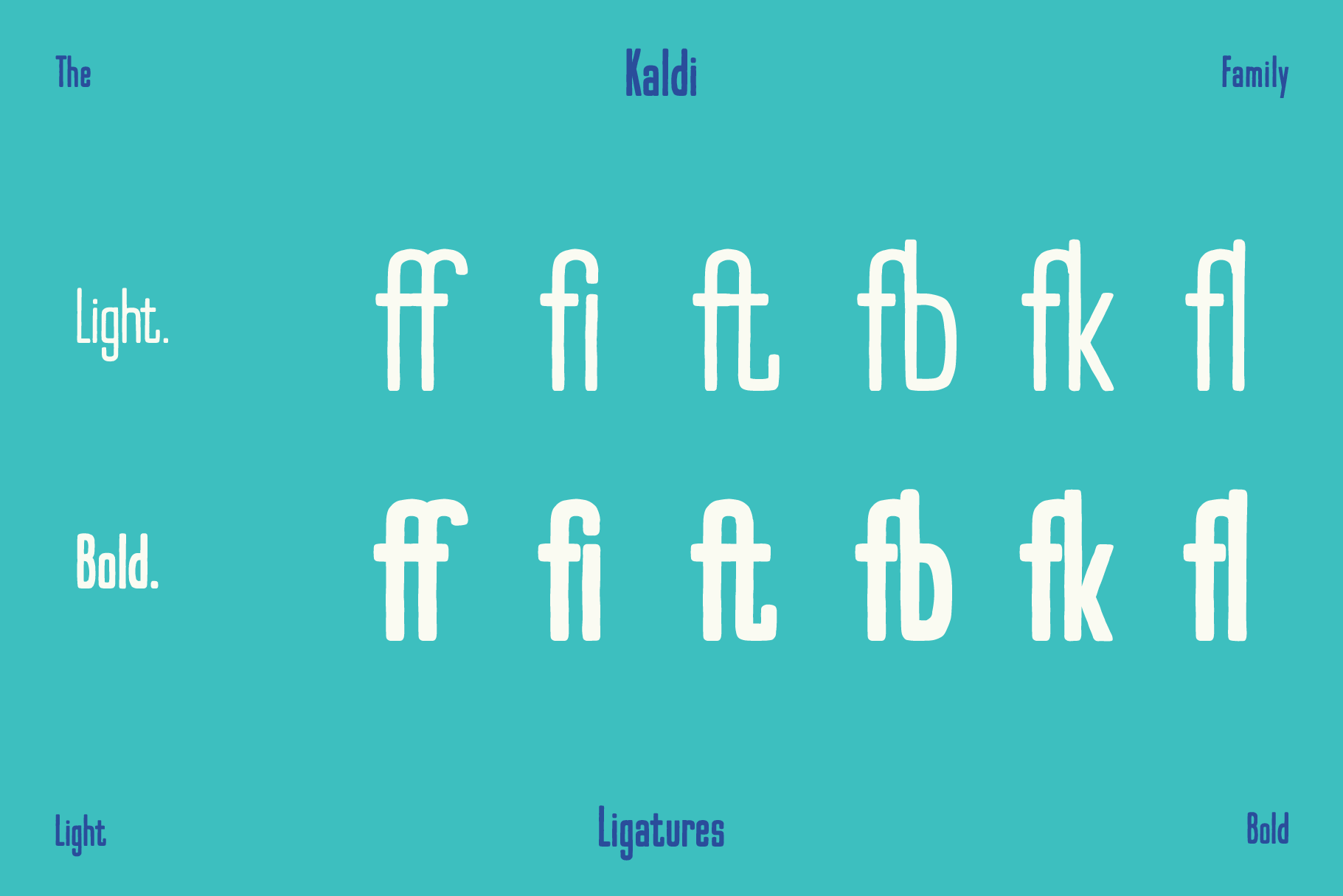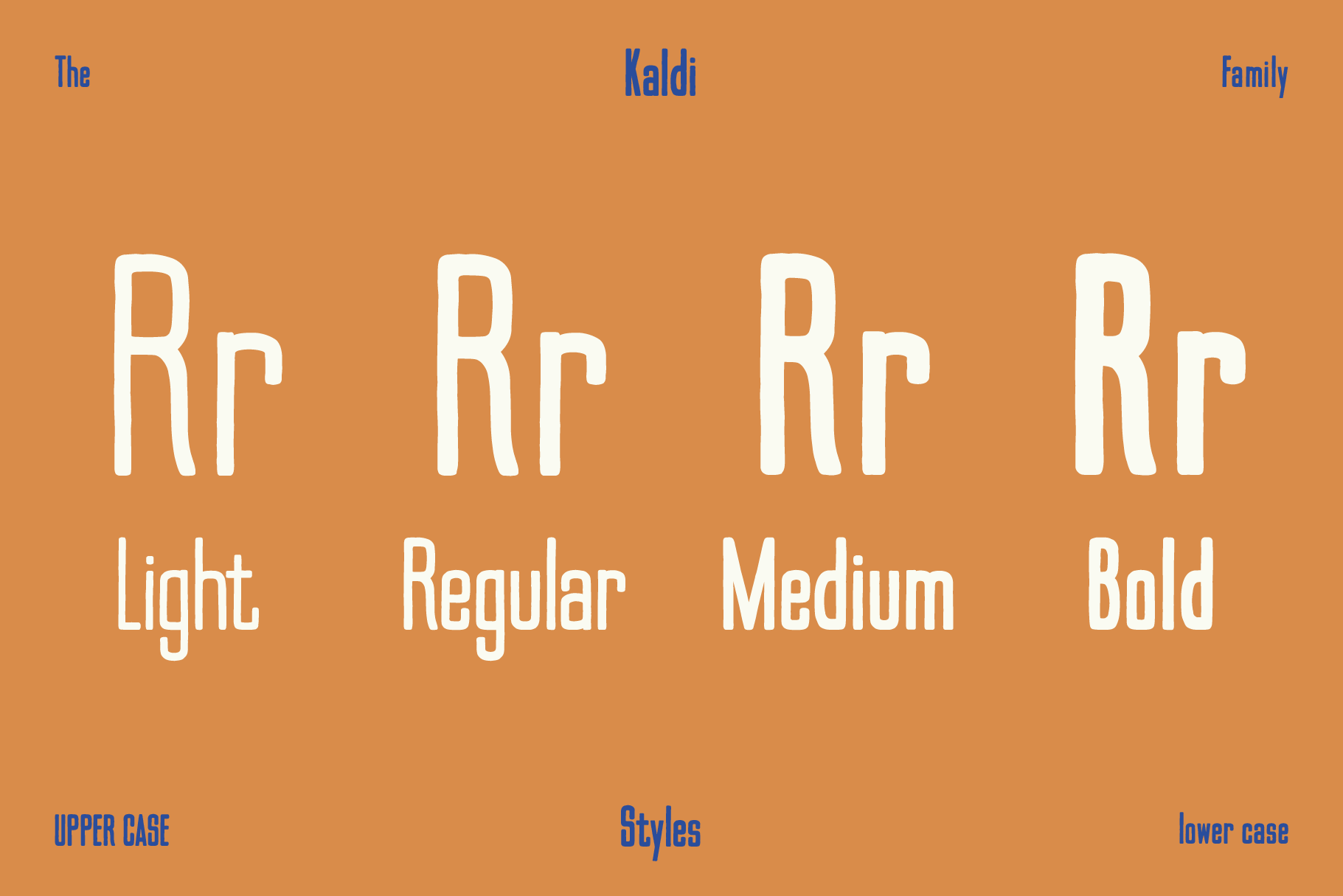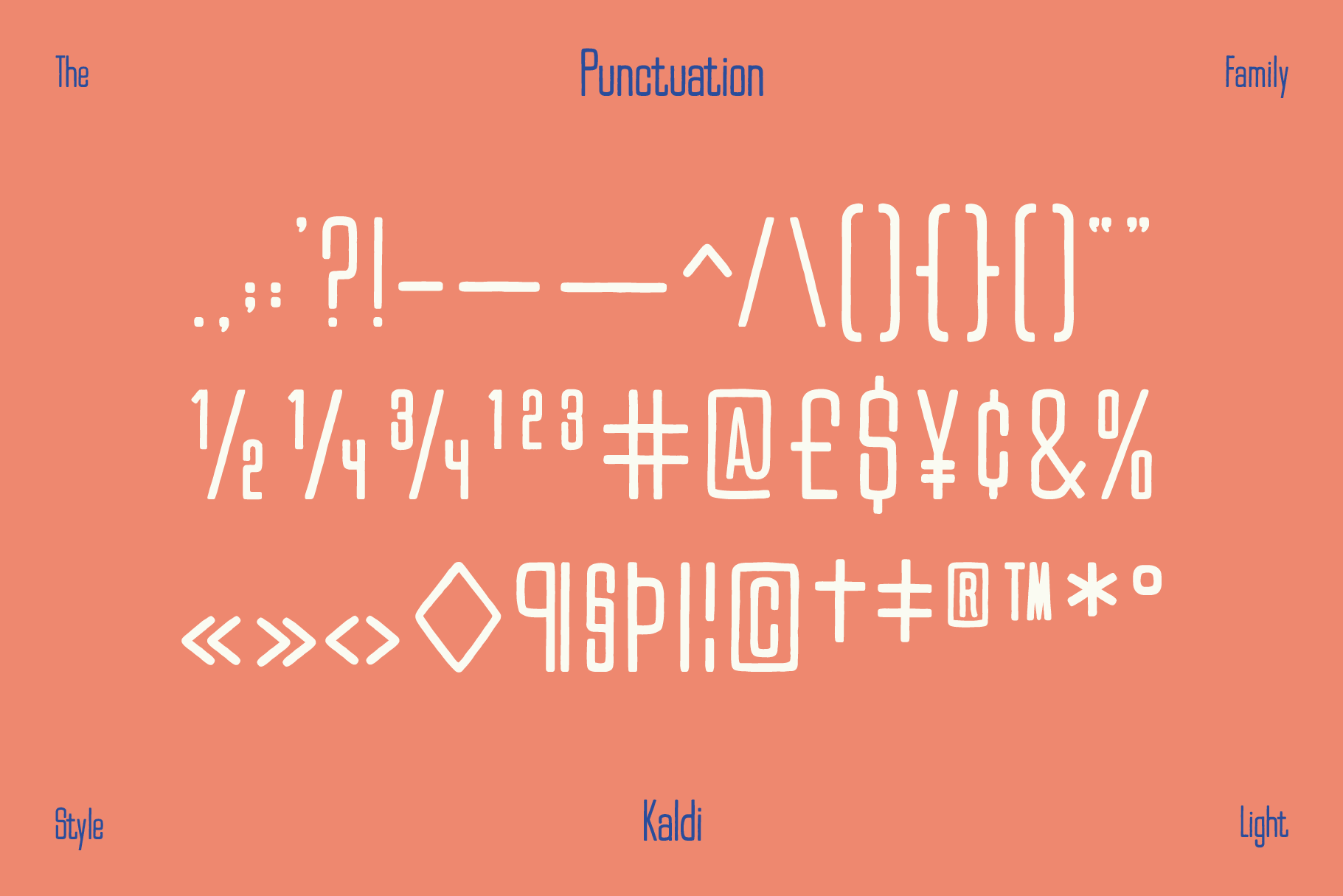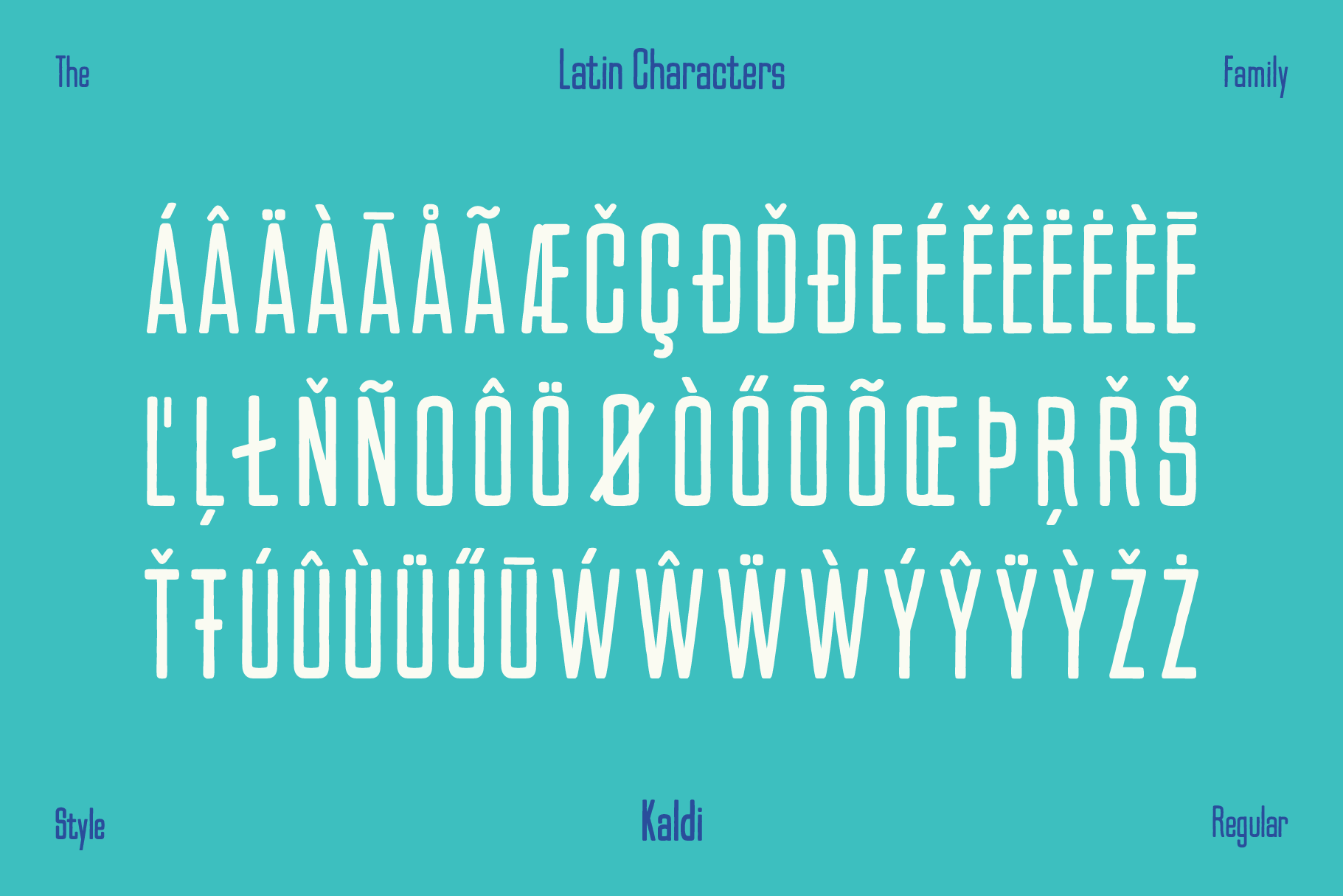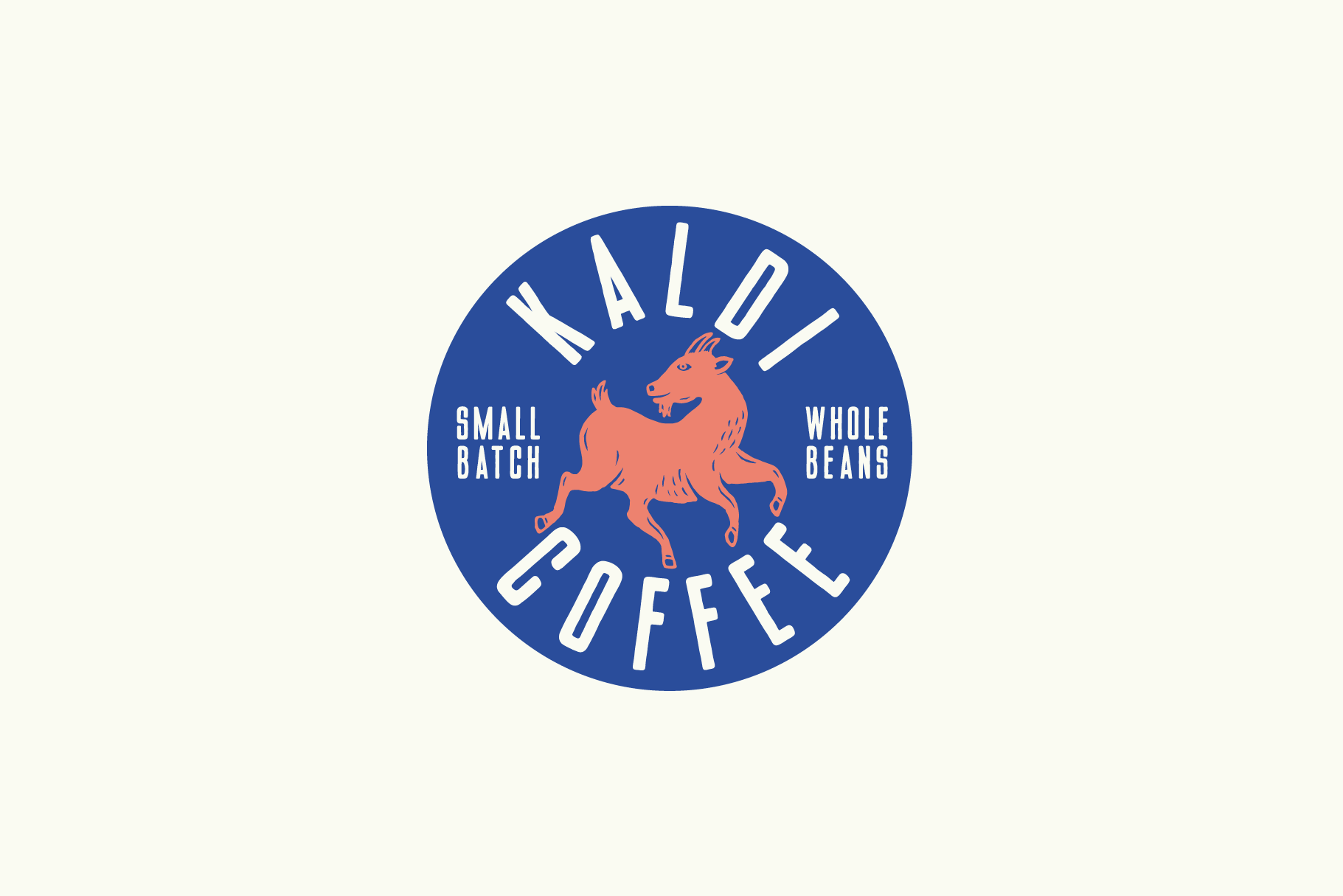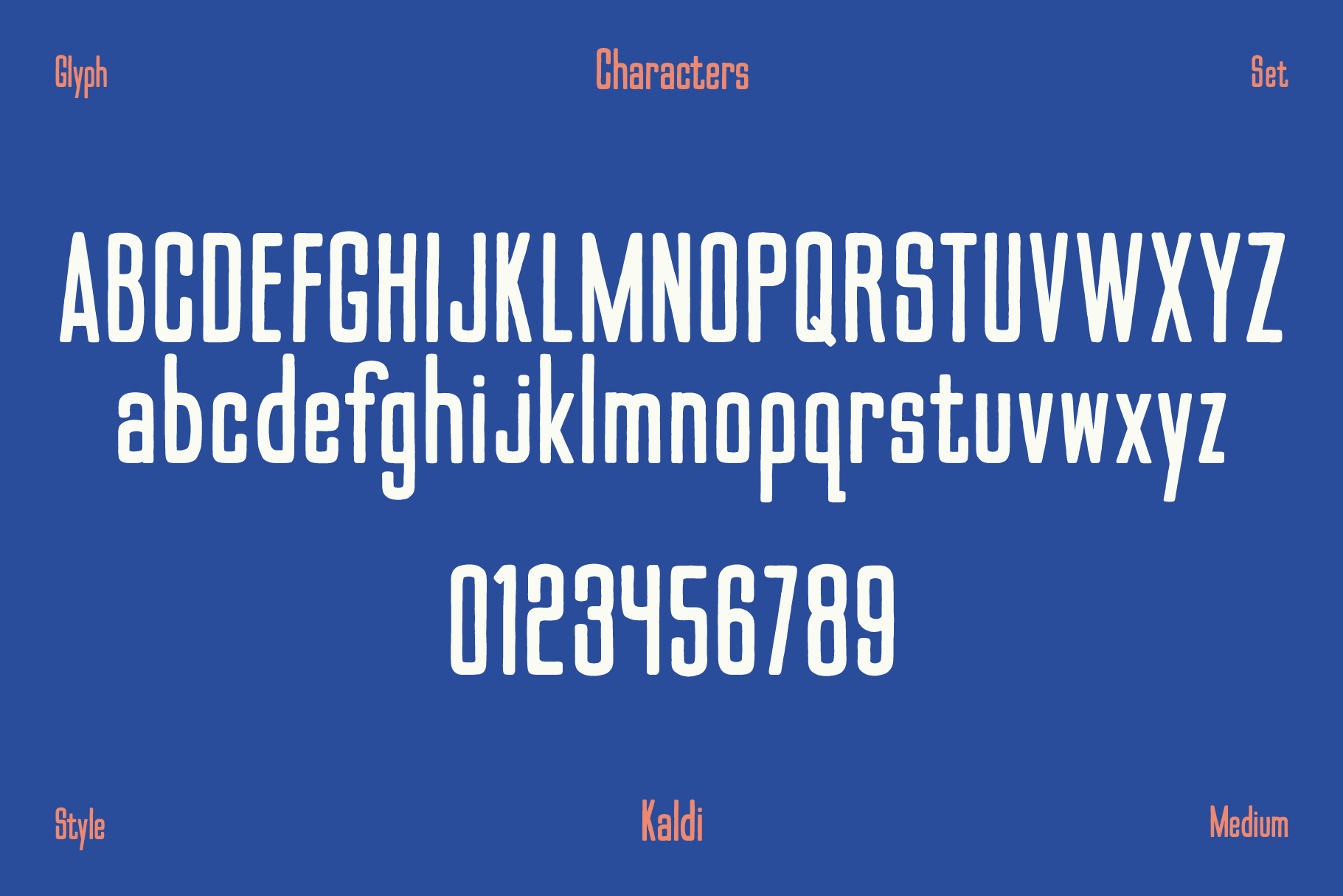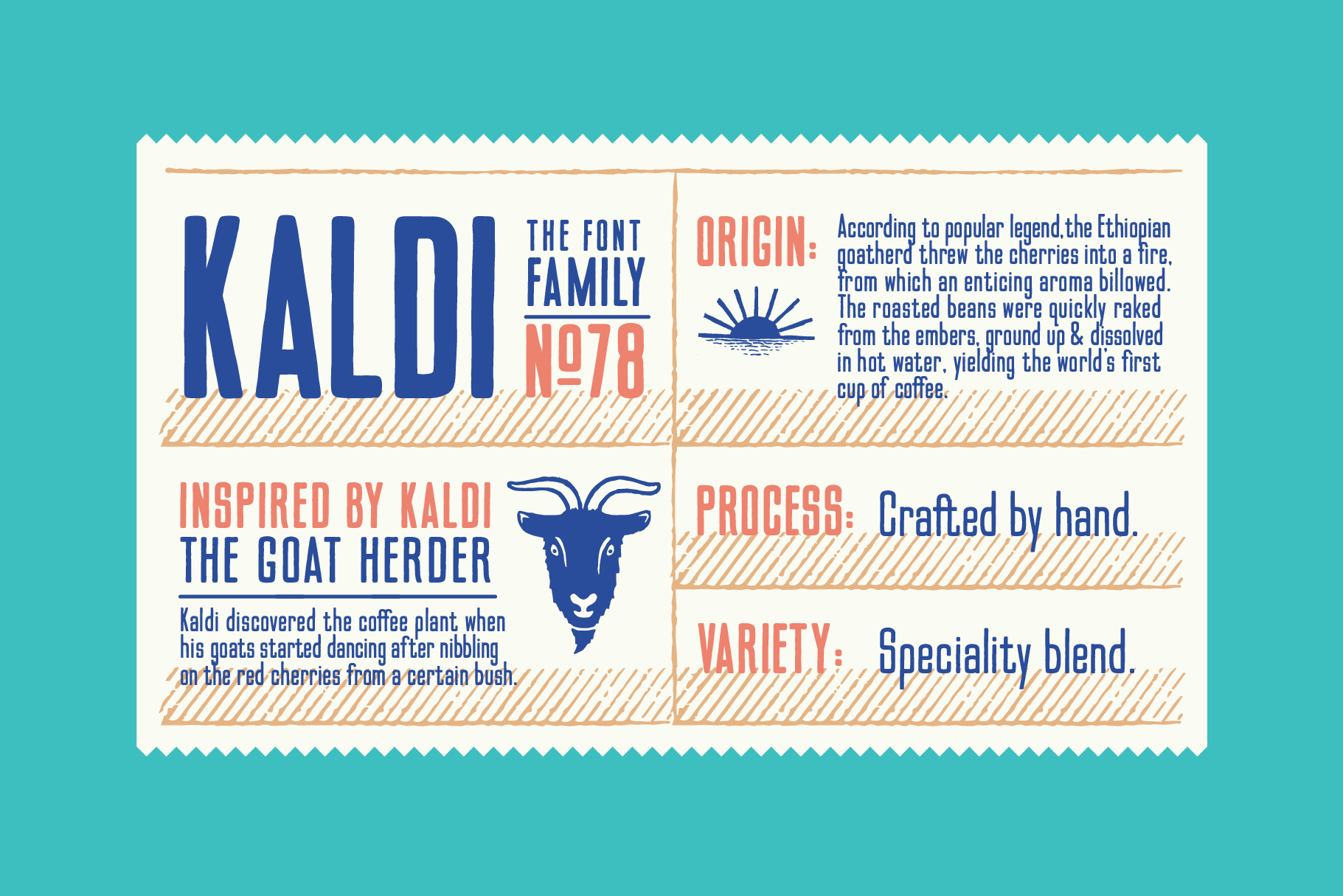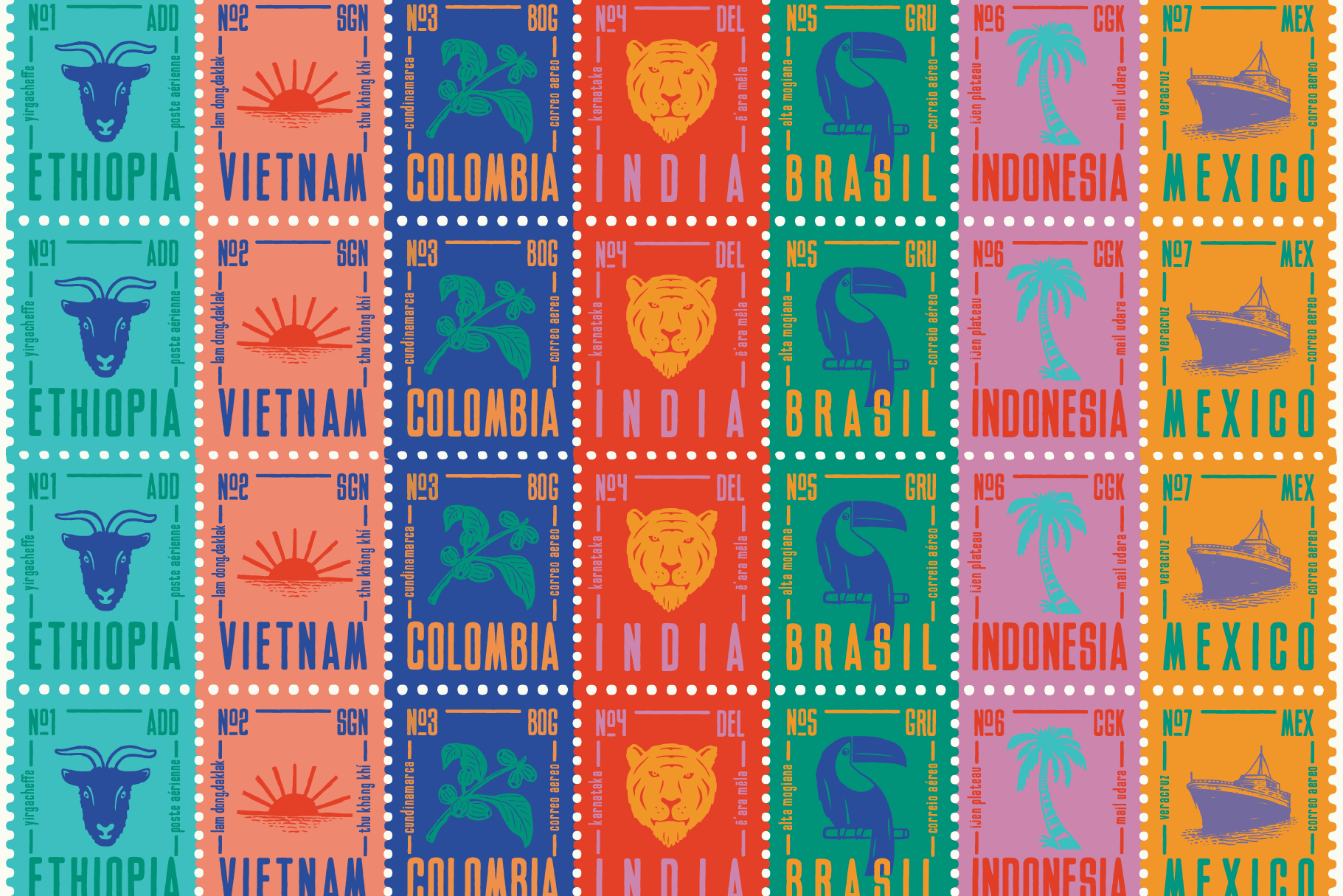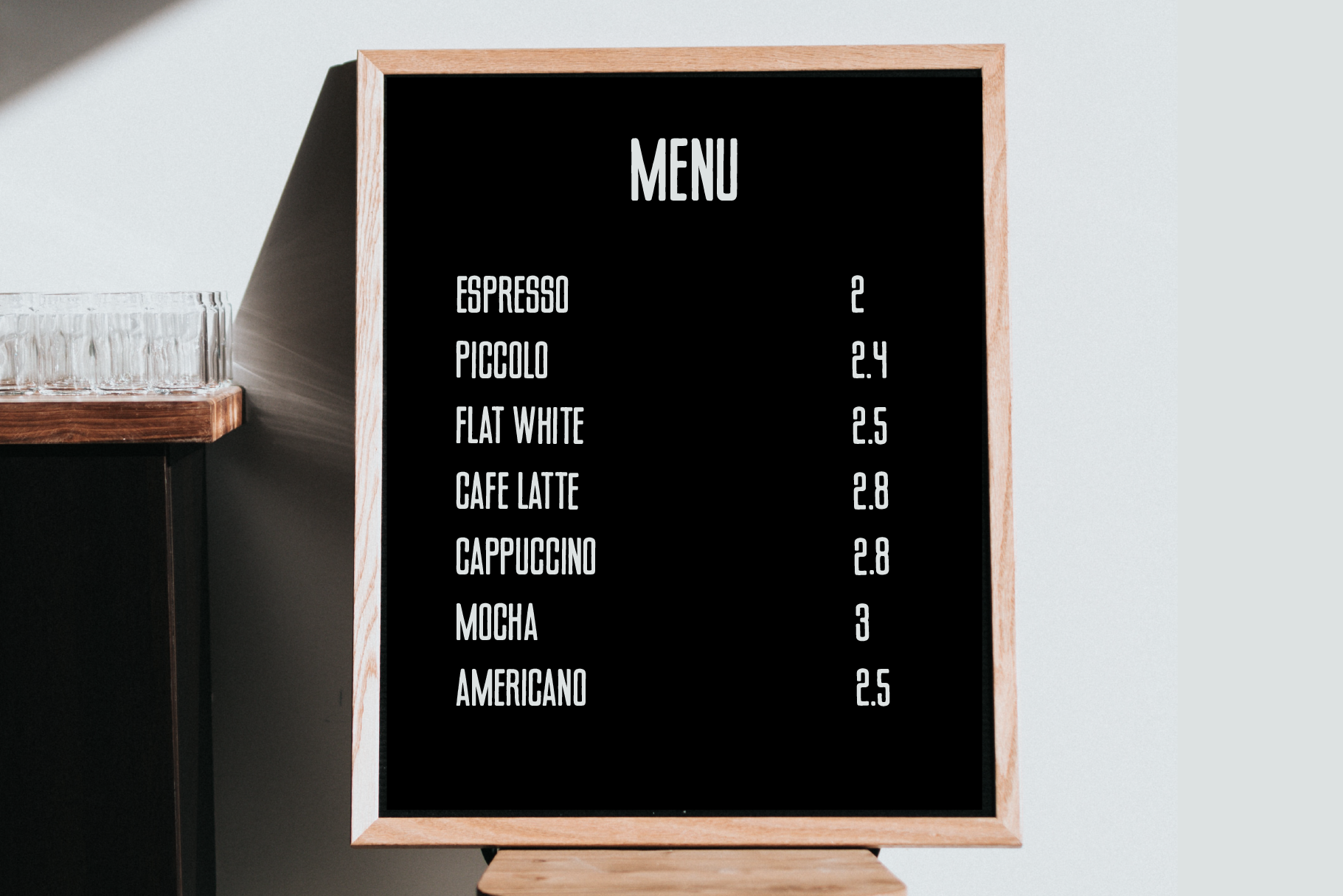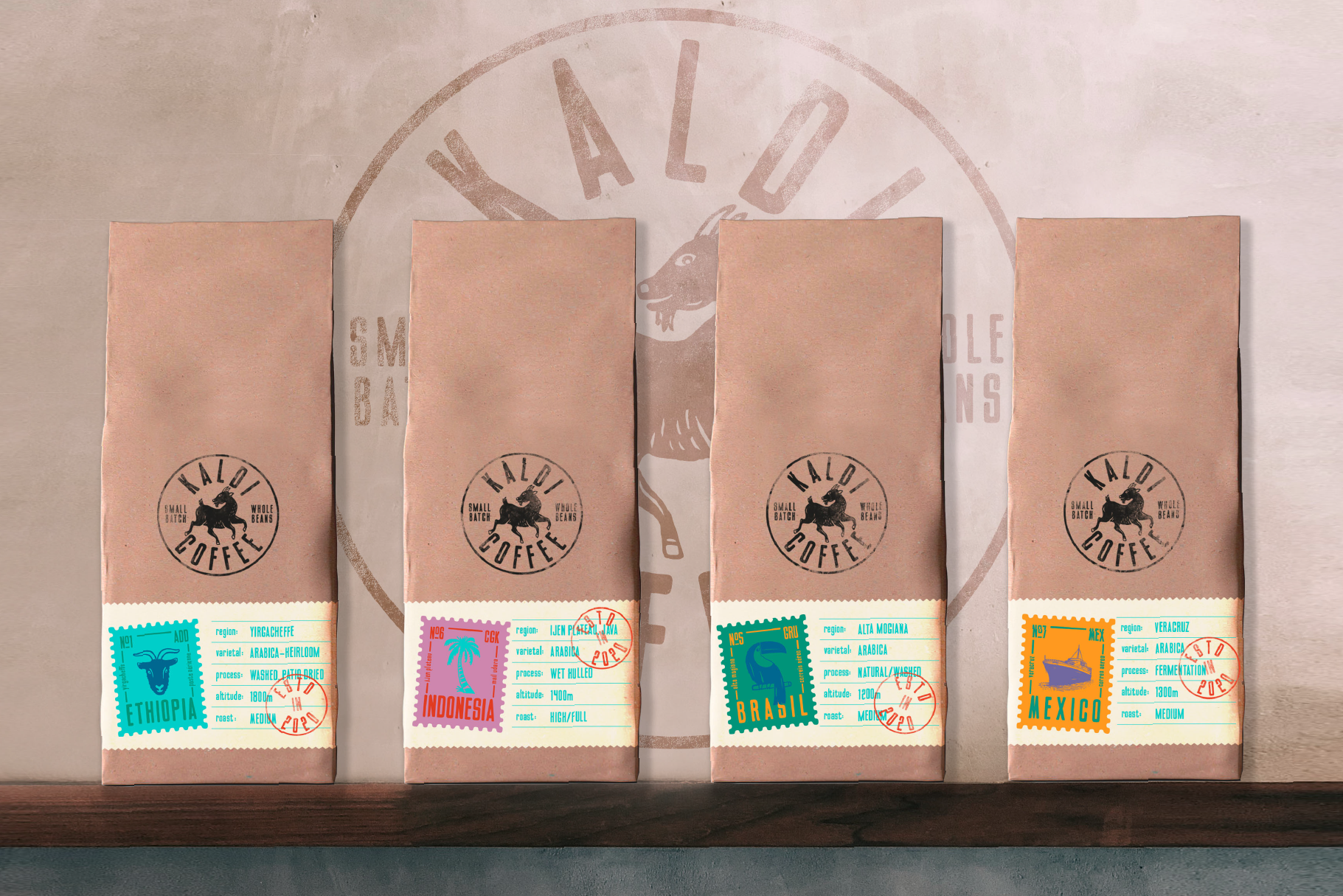
Kaldi is a tall condensed typeface that has gone through a natural process of craft and refinement to create a specialty blend. This font family is inspired by the legend of Kaldi – the goat herder who discovered the coffee plant after his goats started dancing after eating coffee cherries.
Kaldi Light
Kaldi Regular
Kaldi Medium
Kaldi Bold